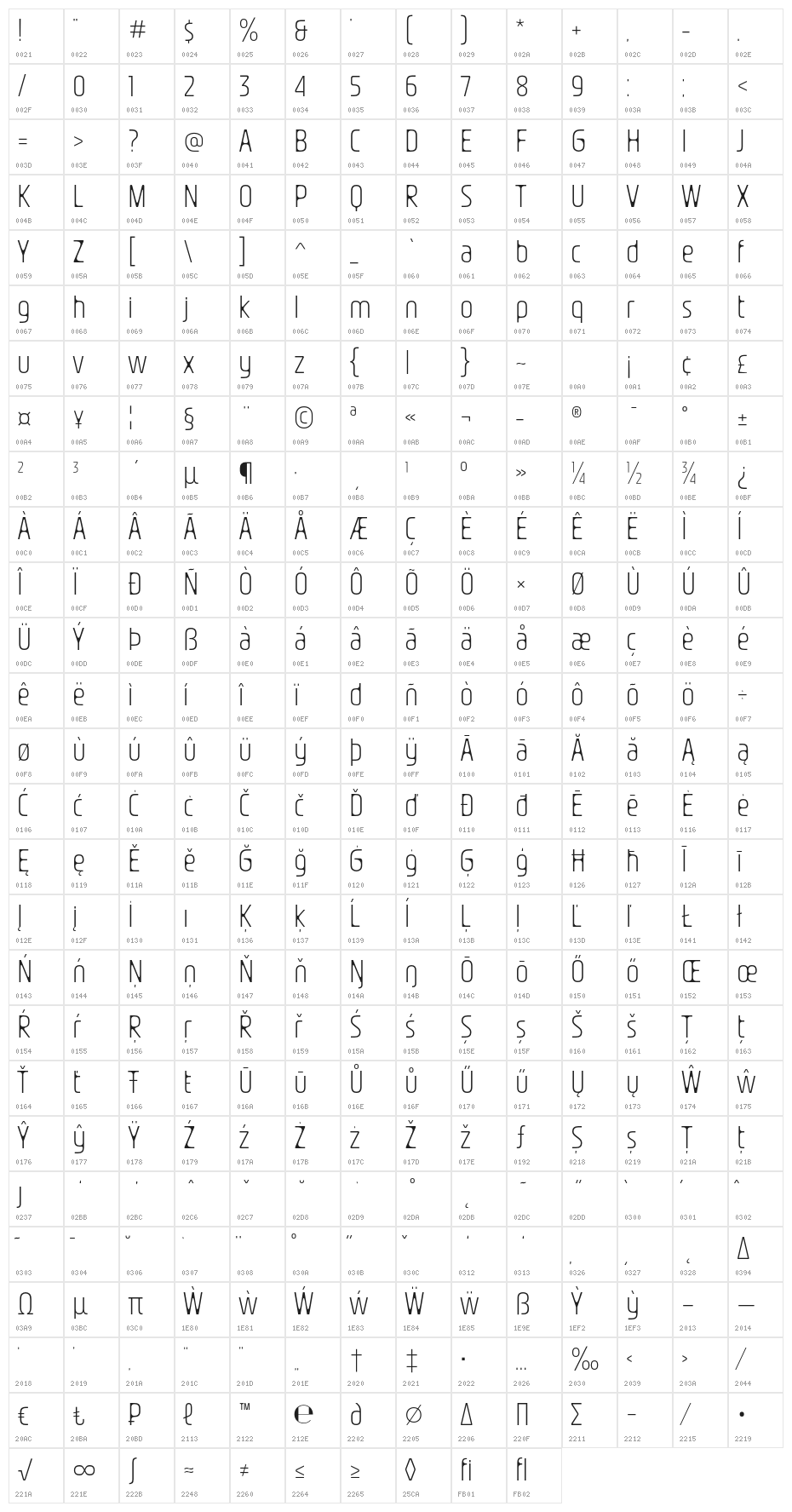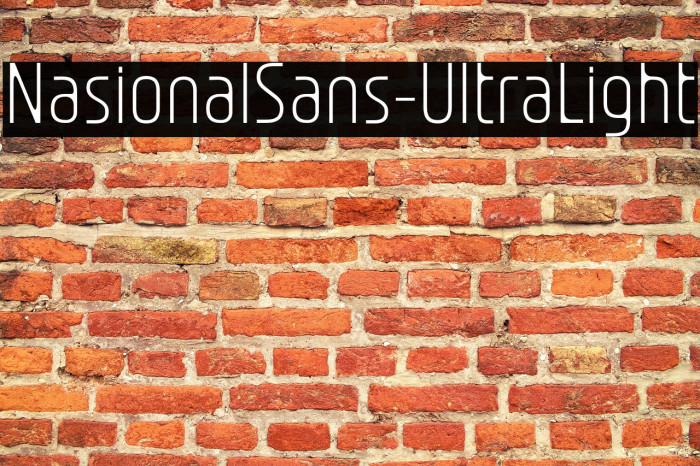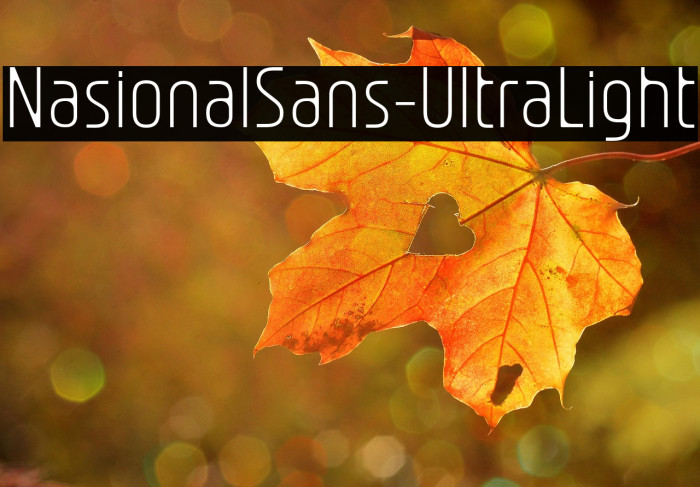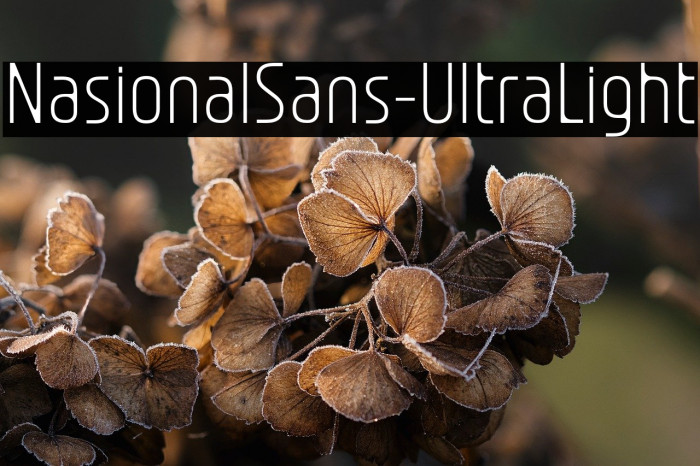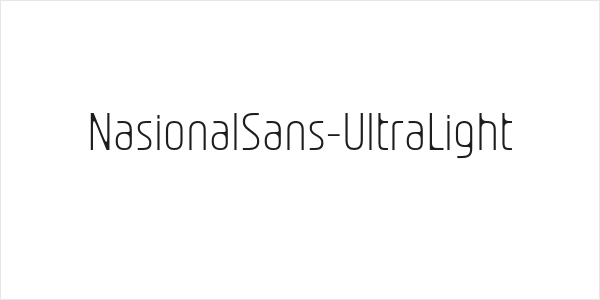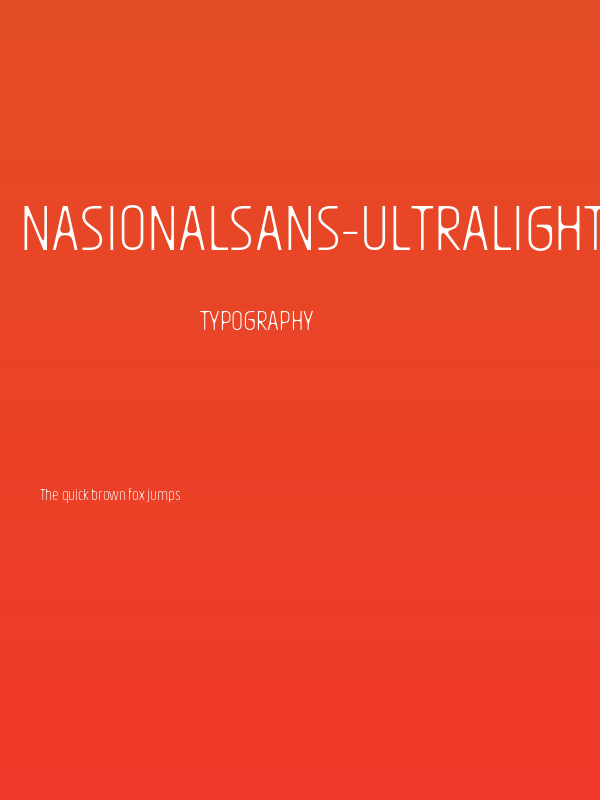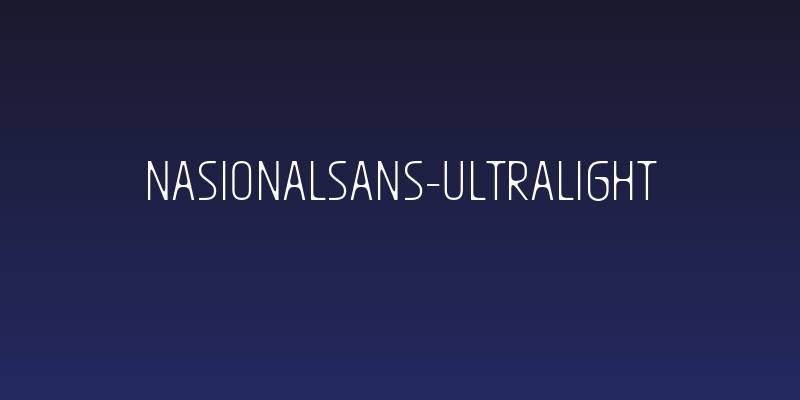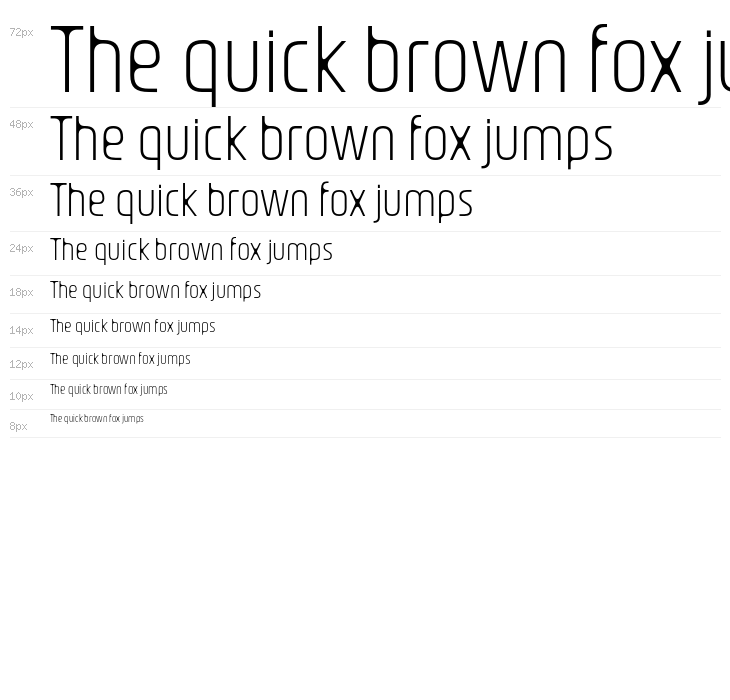
NasionalSans-UltraLight Font
NasionalSans-UltraLight Description
This font features a sleek and modern design with ultra-light strokes, giving it an airy and elegant appearance. The characters are tall and slightly condensed, with smooth curves and minimal contrast in stroke thickness. The uppercase letters are uniform in height, while the lowercase letters maintain a consistent baseline, enhancing readability. The numerals are distinct and align well with the overall style, and the special characters are crafted to match the font's clean aesthetic. This typeface is ideal for projects that require a contemporary and sophisticated look.